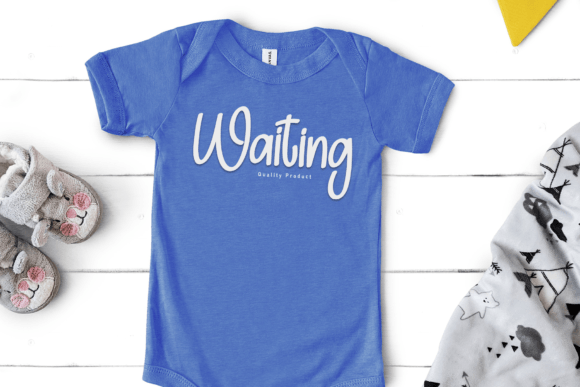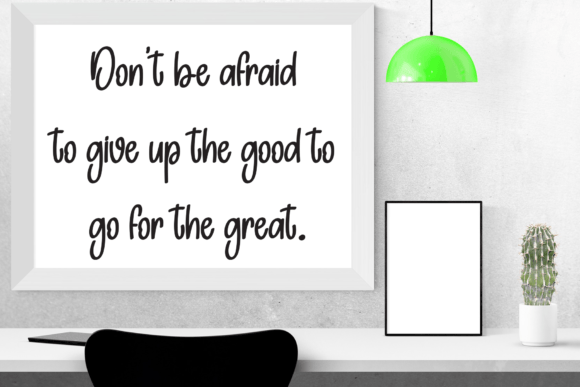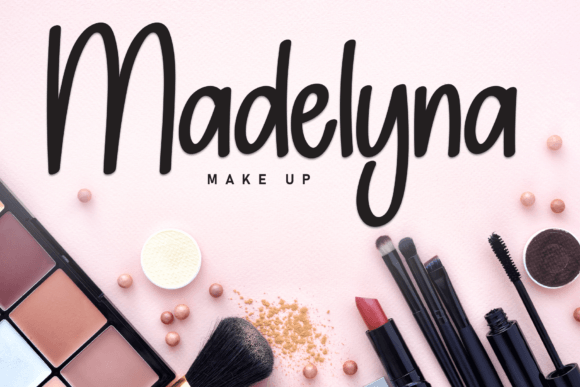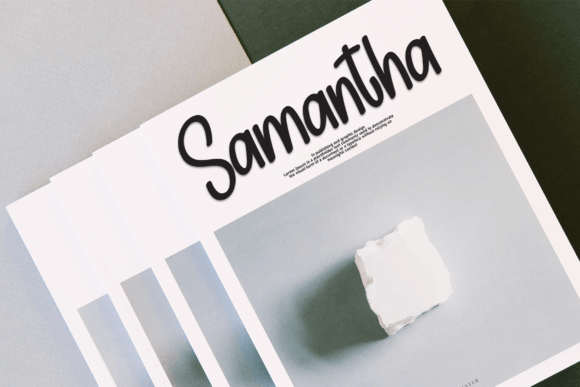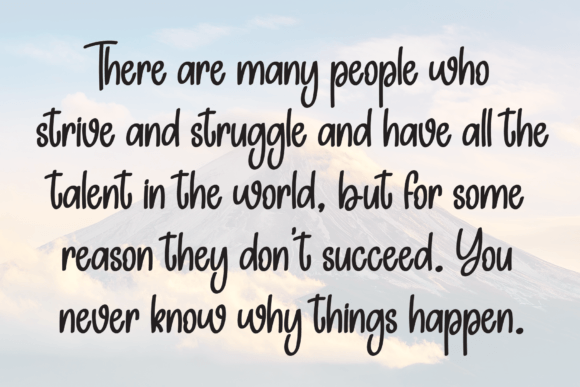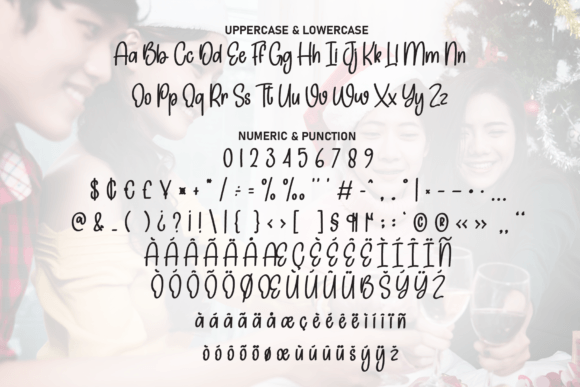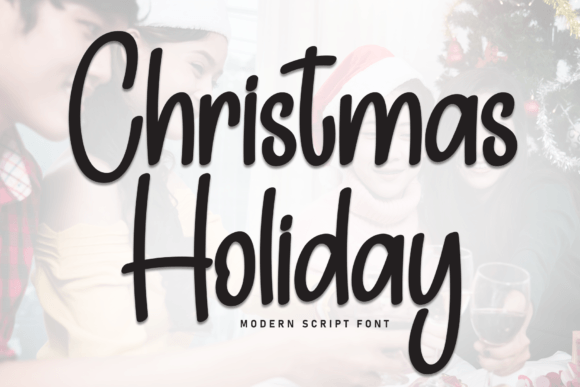
Introducing Christmas Holiday Font: The Perfect Addition to Your Festive Designs
Are you looking for a font that embodies the warmth and friendliness of the holiday season? Look no further than Christmas Holiday Font, a casual handwritten font designed to bring a relaxed and cozy vibe to your designs. With its natural, flowing strokes, this font is perfect for adding a personal touch to your projects, social media posts, and invitations.
What Makes Christmas Holiday Font Special?
Christmas Holiday Font is a unique and charming font that stands out from the crowd. Its effortless, charming style adds warmth and authenticity to any design, making it perfect for a wide range of applications. Whether you’re a designer, crafter, or simply someone who loves the holiday season, this font is sure to become a favorite.
One of the key features of Christmas Holiday Font is its natural, handwritten look. The font’s flowing strokes and casual style give it a relaxed and friendly vibe that’s perfect for creating festive and inviting designs. The font is also highly versatile, making it suitable for use in a variety of contexts, from social media posts and invitations to blog headers and more.
Why Choose Christmas Holiday Font?
So why choose Christmas Holiday Font over other fonts? Here are just a few reasons why this font stands out:
- Unique and charming style: Christmas Holiday Font has a one-of-a-kind look that’s sure to grab attention and add a personal touch to your designs.
- Highly versatile: This font can be used in a wide range of contexts, from social media posts and invitations to blog headers and more.
- Easy to read: Despite its casual style, Christmas Holiday Font is highly legible, making it perfect for use in body text and other applications where readability is key.
- Perfect for festive designs: With its warm and inviting style, Christmas Holiday Font is the perfect choice for creating festive and holiday-themed designs.
How to Use Christmas Holiday Font
Using Christmas Holiday Font is easy! Here are a few tips for incorporating this font into your designs:
- Pair with other fonts: Christmas Holiday Font pairs well with a variety of other fonts, including bold and modern fonts. Try pairing it with a contrasting font to add visual interest to your designs.
- Use for headings and titles: The font’s unique style makes it perfect for use in headings and titles. Use it to add a personal touch to your blog posts, social media posts, and more.
- Add to your social media graphics: Christmas Holiday Font is perfect for adding a festive touch to your social media graphics. Use it to create eye-catching posts and invitations that will grab attention.
Design and Crafting Applications
Christmas Holiday Font is perfect for a wide range of design and crafting applications, including:
- Paper crafting: Use Christmas Holiday Font to add a personal touch to your paper crafting projects, including cards, invitations, and more.
- Digital design: This font is perfect for use in digital design, including social media graphics, blog headers, and more.
- DIY projects: Add a festive touch to your DIY projects, including signs, banners, and more, with Christmas Holiday Font.
Christmas Holiday Font is a unique and charming font that’s perfect for adding a relaxed and friendly vibe to your designs. With its natural, flowing strokes and effortless style, this font is sure to become a favorite among designers, crafters, and anyone who loves the holiday season. Whether you’re looking to create festive and inviting designs or simply want to add a personal touch to your projects, Christmas Holiday Font is the perfect choice.